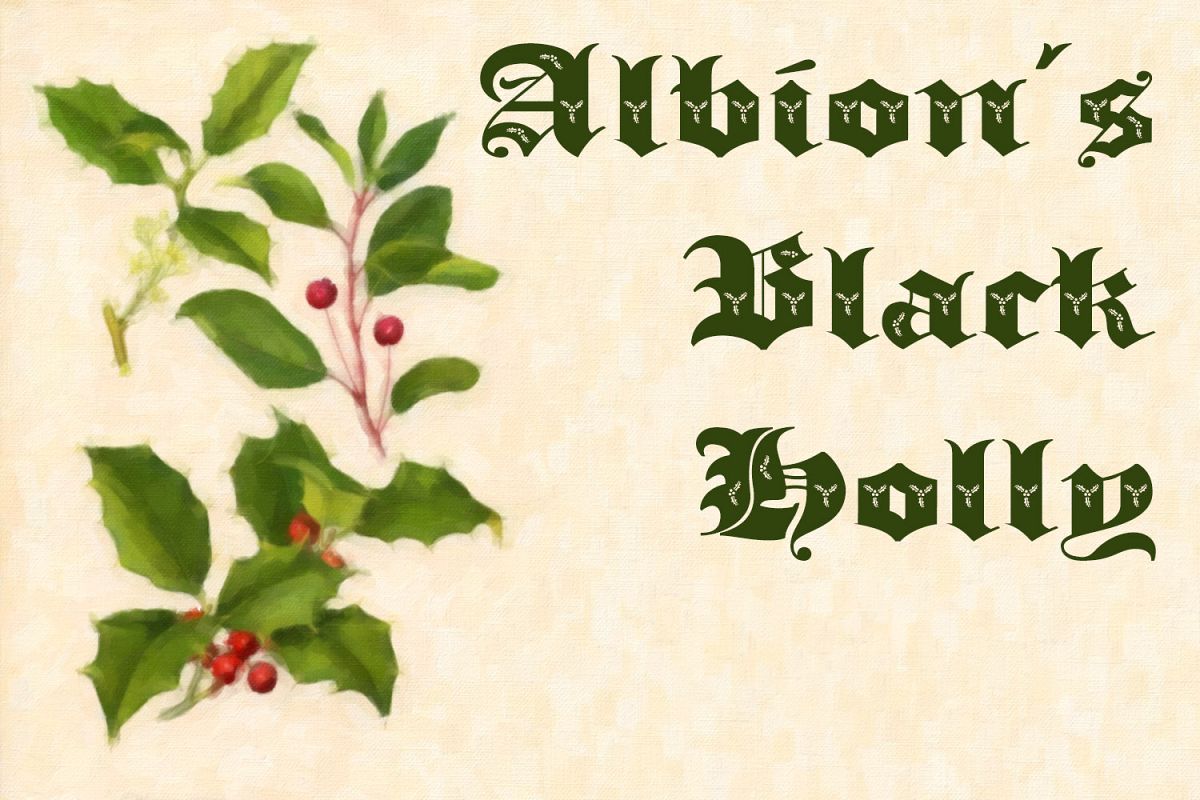
Albion's Black Holly
Black Letter typefaces always have an association with Christmas in the modern psyche.  Albion’s Black Holly reinforces that association with an ornamentation of hooky-sprigs throughout all its letter forms.  This is a design best used at large point sizes, but ideal for Christmas Mastheads, banners and signs.